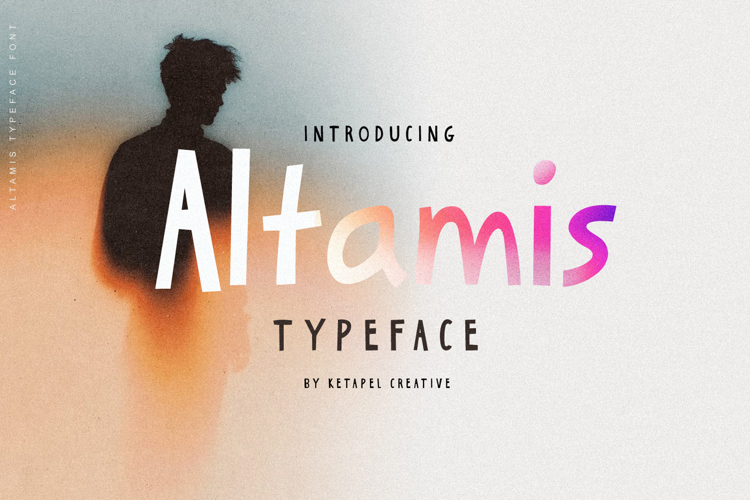
Altamis Font
Altamis is a modern display font that is readable, simple and bold.
Included in uppercase, lowercase, standard numbers & punctuation, multilingual support.